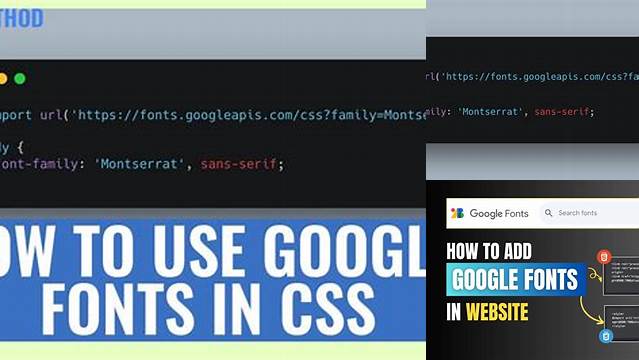
Google Fonts & CSS: A Complete Guide
Hey guys! Let's dive into the awesome world of Google Fonts and how to use them with CSS. This combination is a total game-changer for making your website look fantastic and readable. Google Fonts offers a massive library of free, open-source fonts that you can easily integrate into your projects. And with CSS, you've got the power to style and customize those fonts to perfectly match your website's vibe. This guide is your one-stop shop for everything you need to know, from picking the perfect font to implementing it flawlessly.
H2: What are Google Fonts?
So, what exactly are Google Fonts? Think of it as a giant, super-cool library of fonts, all available for free. Google hosts these fonts, making them super easy to use on your website. They're open-source, meaning you can use them for pretty much anything, including commercial projects. There's a massive variety, from classic serifs like Roboto and Open Sans to more unique and creative fonts. The best part? They're optimized for the web, so they load quickly and look great on any device. Google Fonts is a fantastic resource for web designers and developers, giving you a wide array of typographic choices without costing a dime. It's a fantastic way to enhance your website's look and feel, making it more visually appealing and user-friendly. You can browse by category, language, or even popularity to find the perfect font for your needs. It's like having a massive font store at your fingertips, all accessible with just a few lines of code.
Google Fonts also offers great documentation and support. You can find information about each font's characteristics, licensing, and usage. This ensures you're always using the fonts correctly and legally. Plus, because they're hosted by Google, you don't have to worry about hosting the font files yourself, which can save you a lot of time and server space. Choosing the right font can significantly impact your website's overall aesthetic and user experience. It can influence readability, brand recognition, and even the emotions your website evokes. The thoughtful selection of fonts is, therefore, a vital part of web design. Google Fonts makes this process easier and more accessible, empowering you to create visually stunning websites that stand out from the crowd. Using the right font can make a huge difference in how users perceive your website.
Finally, using Google Fonts can also contribute to your website's SEO. Faster loading times are essential for search engine optimization. Google Fonts is optimized for speed, so it is a good solution to integrate fonts into your website. This means better rankings and more traffic. This is just a side benefit, a bonus to using Google Fonts for your website.
H2: How to Use Google Fonts in CSS: The Basics
Alright, let's get down to the nitty-gritty of how to use Google Fonts with CSS. It's super easy, I promise! First, head over to the Google Fonts website (https://fonts.google.com/) and pick the font you want to use. Click on the +
sign to add it to your selection. Then, click the icon at the top right to open the sidebar where your selected fonts are. You'll see two main ways to implement the font: using a <link>
tag in your HTML or using the @import
rule in your CSS. For the <link>
method, Google provides a snippet of code that you paste into the <head>
section of your HTML document. For the @import
method, you add a line to the top of your CSS file. For example, if you want to use the Roboto font, you would add a line like @import url('https://fonts.googleapis.com/css2?family=Roboto:wght@400;700&display=swap');
to your CSS. The next step is to actually apply the font to your website. This is where CSS comes in. In your CSS file, use the font-family
property. You'll use the font name, as provided by Google Fonts. For example, to make all your paragraph text use Roboto, you would write p { font-family: 'Roboto', sans-serif; }
. And you should always include a fallback font. This means that if, for some reason, the Roboto font doesn't load, the browser will use sans-serif instead. This ensures that your website always displays text, even if there are issues with the internet connection or font loading.
Using Google Fonts is simple when you know the basics. After selecting the font, you get the specific code. If you use the <link>
tag, make sure it is in the <head>
section of your HTML. The @import
method is similar, but instead of adding the line to HTML, you can add it at the top of the CSS file. From there, you'll use the font-family
property in your CSS, like h1 { font-family: 'Open Sans', sans-serif; }
. The final thing is to also make sure you add a fallback font. This makes sure the text is displayed, even if there is an issue with the primary font. It is that easy!
When choosing a font, consider the visual hierarchy of your website. Use one font for headings and another for body text. This helps to guide the reader's eye and improve readability. Using too many fonts can make your website look messy and unprofessional. So, keep it simple and select fonts that complement each other. Also, consider the weight and style of the font. Use bold fonts for headings to make them stand out, and use italic fonts for emphasis. Google Fonts gives you a lot of options to help you with the appearance of your website.
H2: Adding Multiple Google Fonts to Your Website
So, you're not just limited to one font, guys! You can totally use multiple Google Fonts on your website to create a more dynamic and visually interesting design. Let's say you want to use Roboto for your body text and Lato for your headings. The process is similar to using a single font, but with a few extra steps. First, go to Google Fonts and select both fonts by clicking the +
button on each. After selecting both fonts, go to the